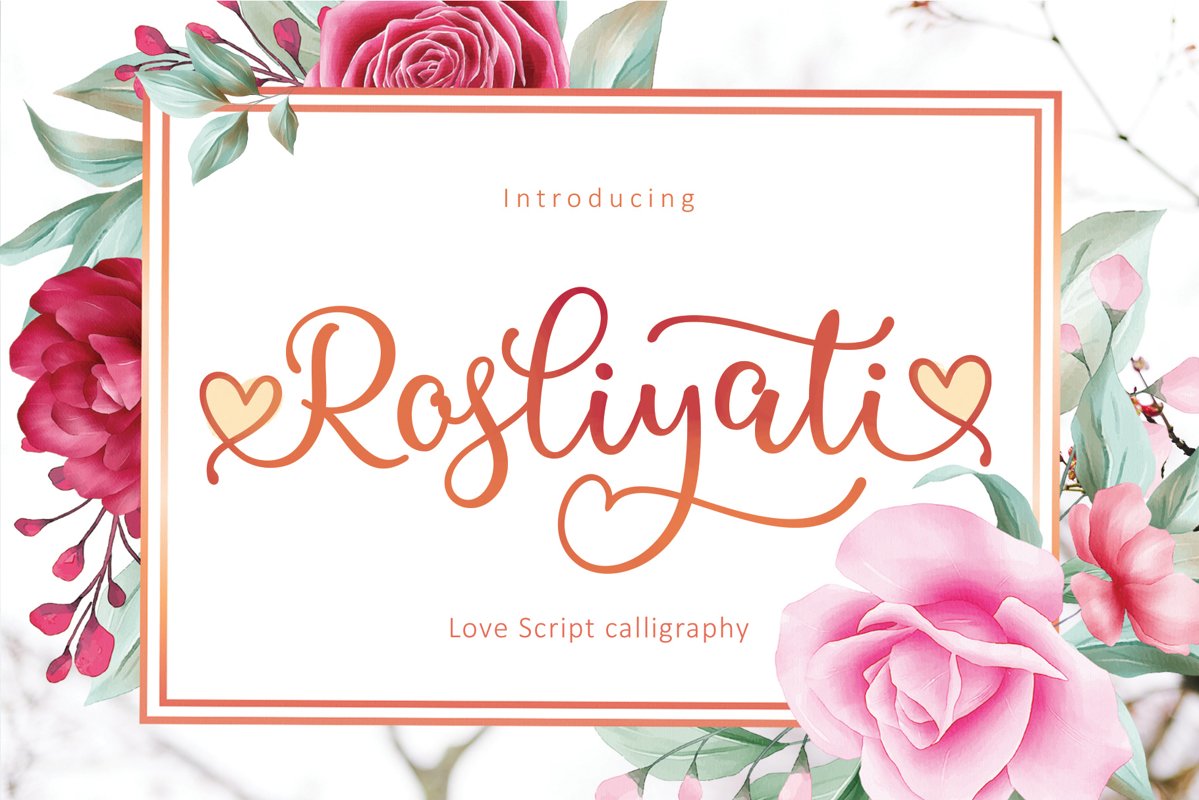
Rosliyati script -font that is fresh, funny, interesting, cute with lots of heart characters and also very beautiful with alternatives, this font looks natural, elegant, and perfect for extraordinary projects.
Rosliyati script is suitable for various products such as invitations, product packaging, offers, product design, crafters, labels, photography, watermarks, logos & branding. Everything can be accessed using software that supports Opentype, such as Adobe Indesign, Adobe CS Illustrator, Adobe Photoshop CC, and Corel Draw.